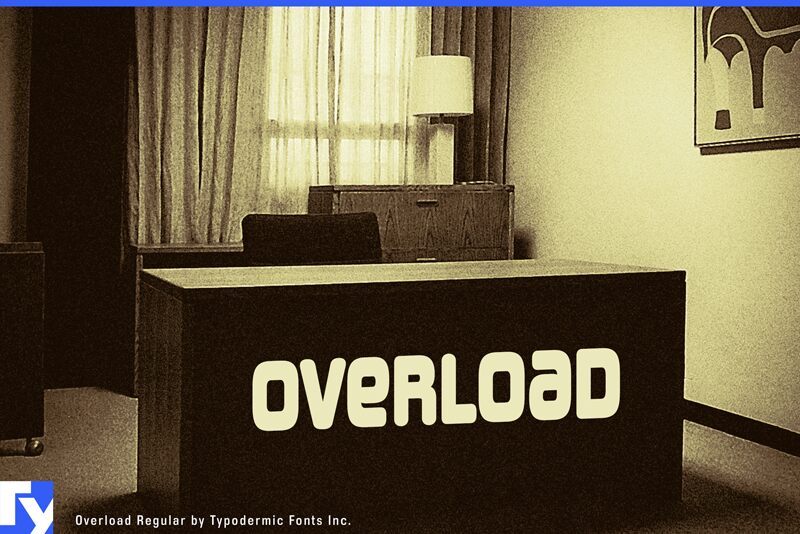
Overload-Regular
Overload is a striking, stout display font that exudes a bold, techno-inspired aesthetic. Its unicase design and condensed width lend it a powerful, attention-grabbing presence, making it an ideal choice for prominent headlines, titles, and branding elements. The font's thick, geometric letterforms convey a sense of strength and digital-age sophistication, while the lack of distinction between uppercase and lowercase adds a unique, visually arresting quality.
Overload's design evokes a sense of industrial machination and futuristic technology, making it well-suited for use in a variety of contexts, from science fiction-themed designs to high-impact advertising campaigns. Its bold, condensed form ensures strong legibility, even at larger sizes, making it a versatile tool for designers seeking to make a bold, impactful statement.
Ray Larabie